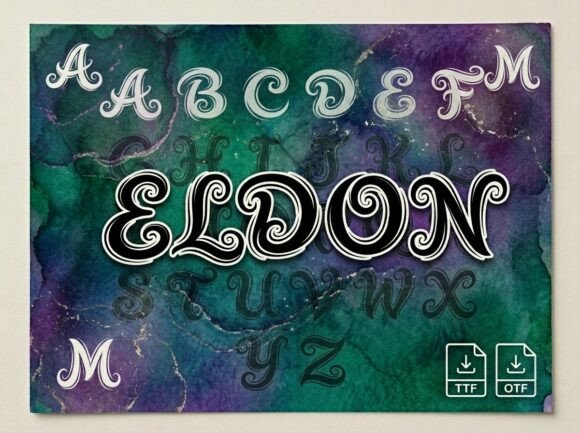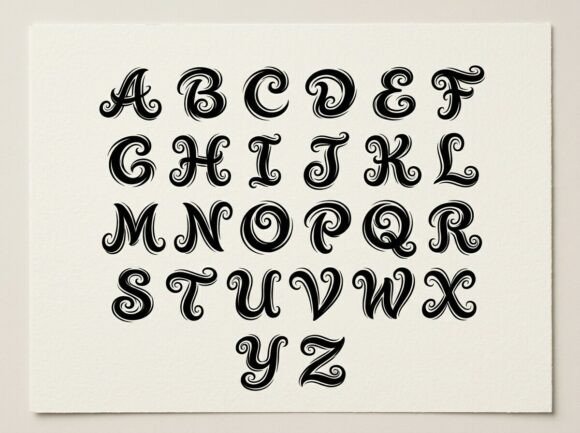
Unlock the Magic of Storytelling with Eldon: A Comprehensive Guide
I’ll never forget the design moment that led me to Eldon. I was working on a fantasy book cover, trying to find the perfect font to evoke a sense of ancient magic and wonder. My client wanted something that would transport readers to another world, but I was stuck. That was until I stumbled upon Eldon, a mystical display font that would change the game.
The Eldon Effect: A Font Like No Other
Eldon is more than just a font – it’s an experience. With its bold, expressive letterforms characterized by intricate “swirl” motifs and rhythmic, curling terminals, it’s the perfect choice for fantasy book titles, boutique apothecary branding, mystical event posters, and creative editorial headers.
What Makes Eldon Special?
- ✨ Intricate swirl motifs that evoke a sense of ancient magic and fluid motion
- ✅ High-contrast outlines that provide a sophisticated yet whimsical aesthetic
- 🔥 Unique ornamental apertures that add a touch of elegance and wonder
An Honest Review: The Good and the Quirks
What I Love About Eldon
- ✨ The way Eldon seems to come alive on the page, evoking a sense of handcrafted wonder and unyielding cosmic power
- ✅ The versatility of Eldon – it works beautifully for both modern-fantasy and spellbound aesthetics
- 💫 The attention to detail in the design, from the swirl motifs to the curling terminals
While Eldon is an exceptional font, there are a few quirks to be aware of:
- ⚠️ Legibility at small sizes: Eldon is best used at larger sizes, as some details may get lost at smaller sizes
- 🤔 Pairing with other fonts: Eldon can be a bit dominant, so be mindful of pairing it with other fonts that may get lost
The Story Behind Eldon: Designer Inspiration
Eldon’s design was inspired by the mystical and ancient cultures of the world. The designer wanted to create a font that would evoke a sense of wonder and magic, while also being elegant and sophisticated. The result is a font that’s perfect for anyone looking to add a touch of enchantment to their designs.
| Font Name | Eldon Font |
Q: What is Eldon best used for?
A: Eldon is best used for fantasy book titles, boutique apothecary branding, mystical event posters, and creative editorial headers.
Q: Is Eldon difficult to read?
A: Eldon is a display font, and as such, it’s best used at larger sizes. At smaller sizes, some details may get lost, making it more difficult to read.